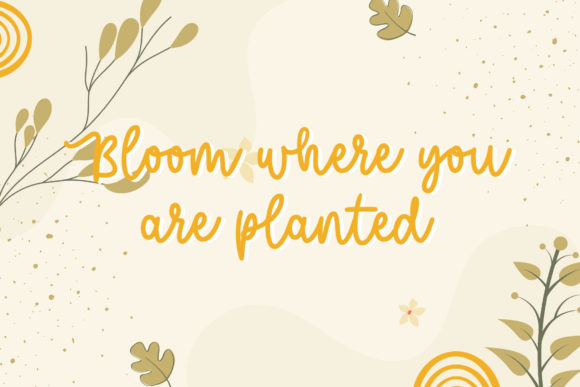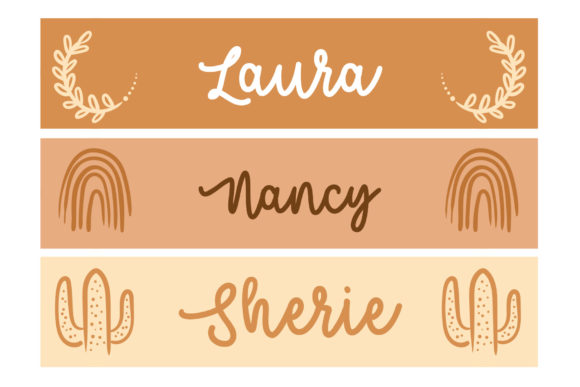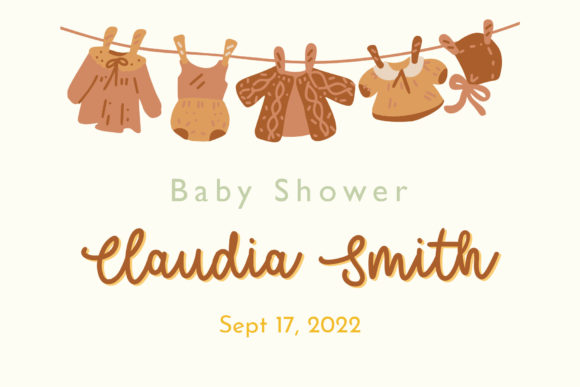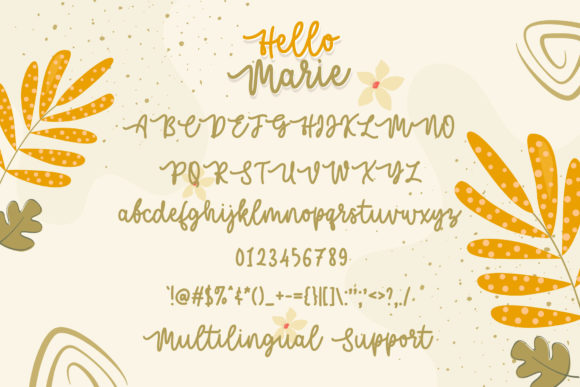
Hello Marie Font
About Hello Marie Font
Introducing “Hello Marie,” a lovely script font featuring cute initial characters, designed to add a touch of charm to your name designs and various creative projects. This font is perfect for making your crafts more unique and lovely, enhancing them with a touch of elegance and personality.
The cute initial characters of Hello Marie make it an ideal choice for personalizing your designs, whether you’re working on name designs, invitations, branding, or any other creative endeavor. The font’s charming style adds a delightful and sophisticated touch to your text, making it stand out with grace.
Imagine Hello Marie gracing your name designs, adding a touch of charm and elegance to personal projects. Envision it becoming a signature element in your crafts, making them more unique and memorable. The font’s lovely script is versatile and adaptable, making it suitable for various purposes where a touch of elegance is desired.
In essence, Hello Marie is more than just a font; it’s a design asset that brings a lovely and charming script to your projects. Its cute initial characters and elegant style invite you to make your crafts more unique and delightful. Choose Hello Marie to infuse your designs with a touch of charm, turning each creation into a personalized and lovely expression of creativity.